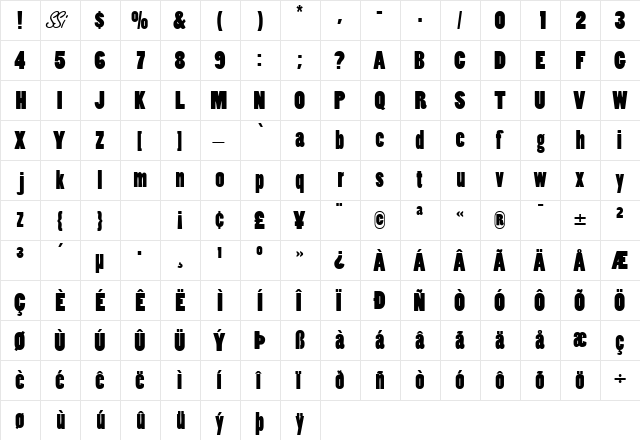
SlotSSK Bold
Design Context for SlotSSK Typeface
SlotSSK offers clean, dependable letterforms without strong stylistic allegiance, making it a practical choice for designers who need flexibility. Its bold stroke weight gives it real presence on the page.